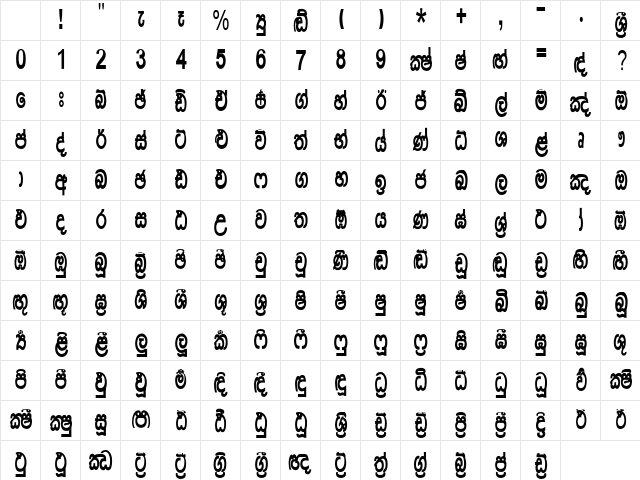
Complete Asgiriya Supplement Regular glyph index. Displaying only characters natively supported by Asgiriya Supplement Regular font.
Asgiriya Supplement is a composed and adaptable typeface that performs quietly and consistently across a wide range of design contexts.